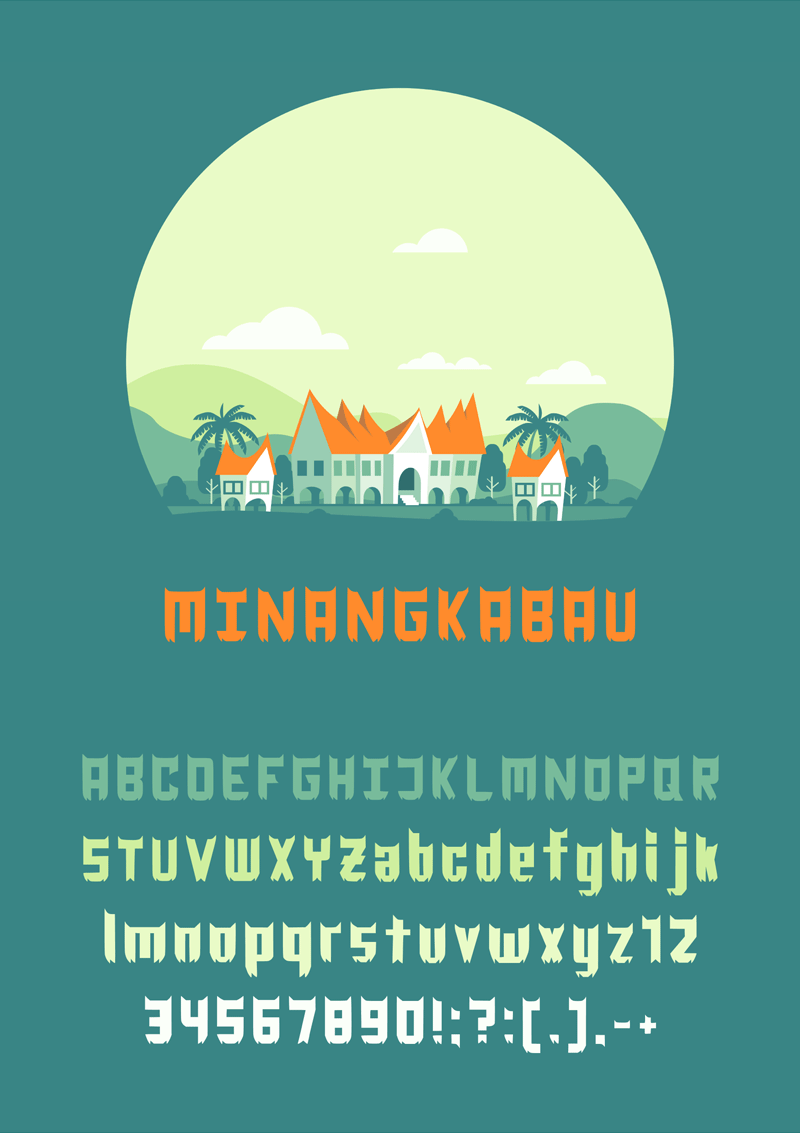
The top of each typeface is inspired by the roof of the Gadang house which is curved and pointed upwards.
The inside of the middle of several box-shaped type faces is inspired by the box window of the Gadang house.
The lower part of each typeface is the roof of the Gadang house which is curved and pointed upwards, which intersects each bottom of the typeface.
Rumah gadang in the Pandai Sikek village of West Sumatra, with two rice barns (rangkiang) in front
Rumah gadang (Minangkabau: "big house") or rumah bagonjong "house for the Minangkabau people" (Minangkabau: "spired roof house") are the traditional homes (Indonesian: "rumah adat") of the Minangkabau in West Sumatra, Indonesia. The architecture, construction, internal and external decoration, and the functions of the house reflect the culture and values of the Minangkabau. A rumah gadang serves as a residence, a hall for family meetings, and for ceremonial activities. In the matrilineal Minangkabau society, the rumah gadang is owned by the women of the family who live there; ownership is passed from mother to daughter.
The houses have dramatic curved roof structure with multi-tiered, upswept gables. Shuttered windows are built into walls incised with profuse painted floral carvings. The term rumah gadang usually refers to the larger communal homes, however, smaller single residences share many of its architectural elements.